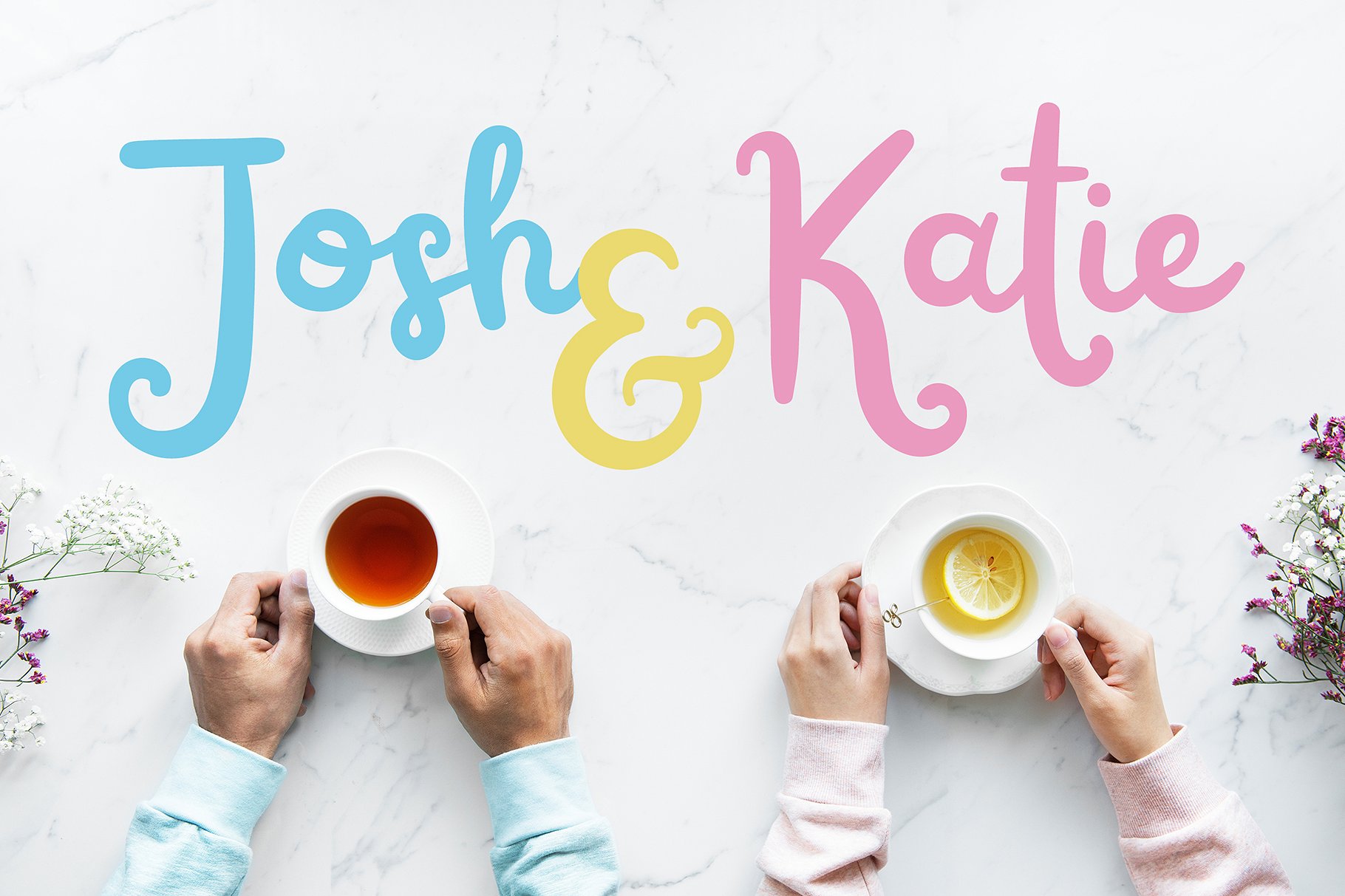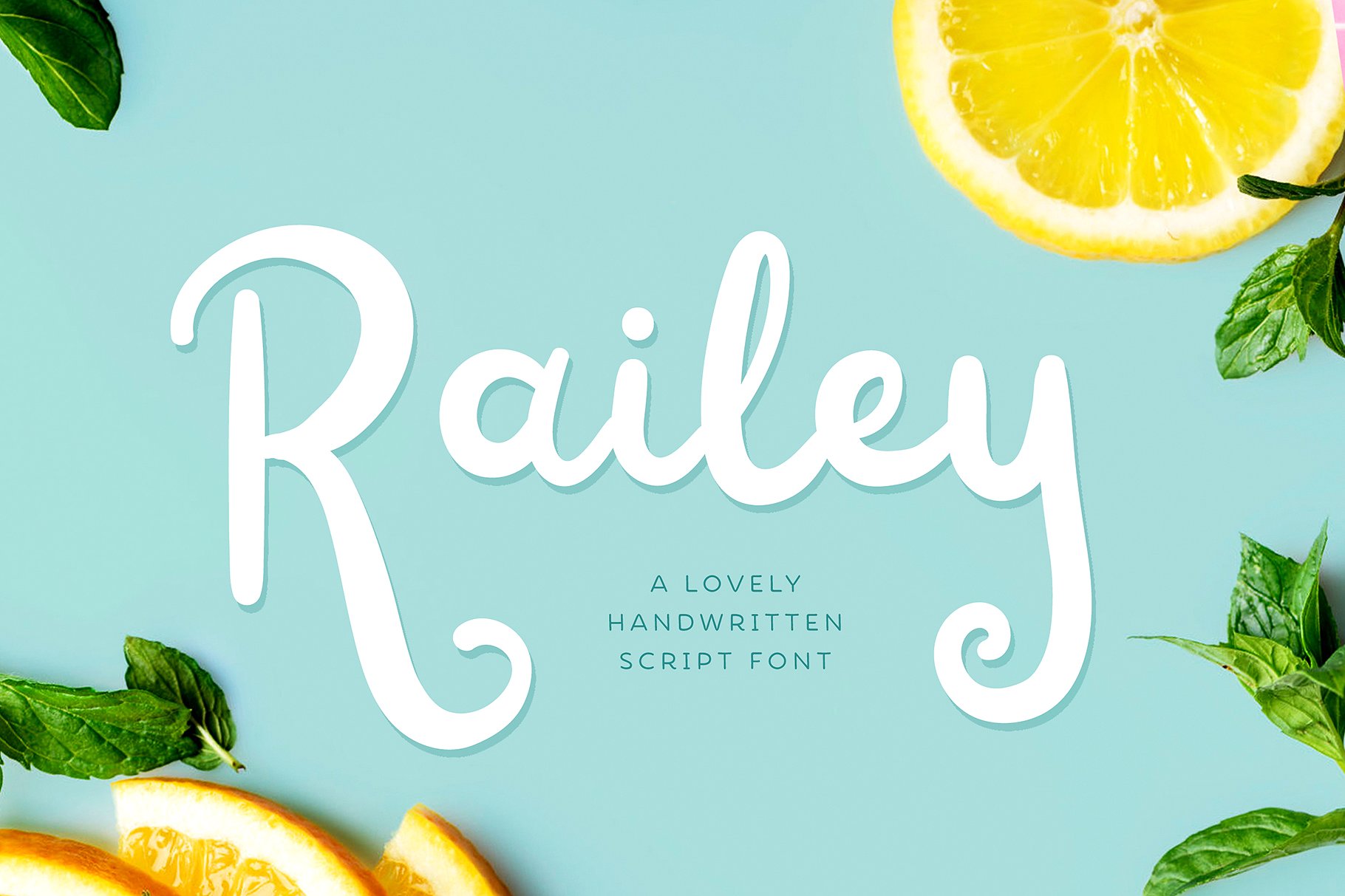
Railey Script
Railey Script Font
Railey is a lovely, modern handwritten font, perfect for any design & craft projects! Ideal for quotes, home decor, wedding invites, blog header, branding, t-shirts, posters & etc!